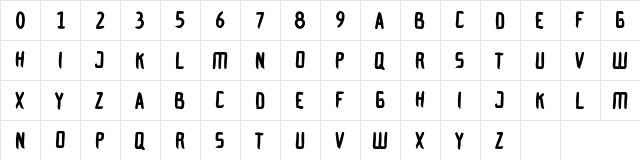
Nunavut Regular
| Designer | setyaisiam |
Design Context for Nunavut Typeface
Nunavut takes a measured approach to typography — its balanced proportions and neutral character make it a reliable workhorse for both digital and print work.